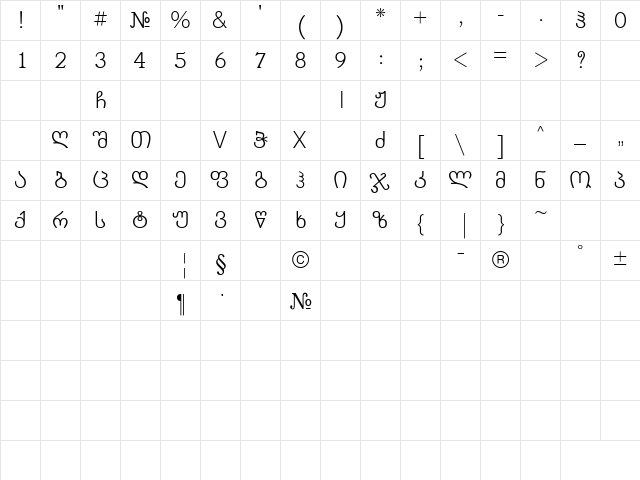
Chweul Mt_n Regular
Chweul Mt_n offers clean, dependable letterforms without strong stylistic allegiance, making it a practical choice for designers who need flexibility.